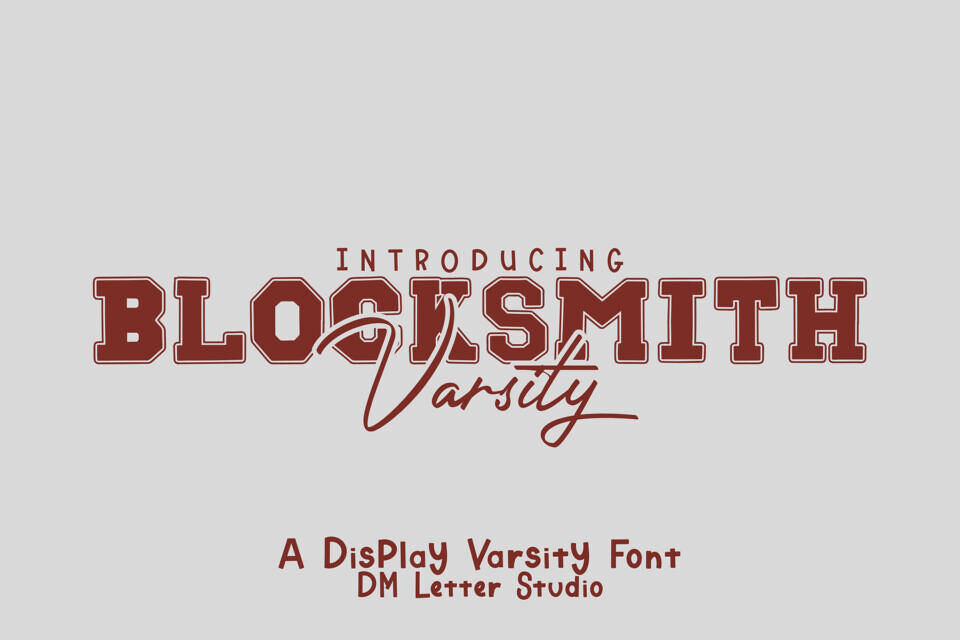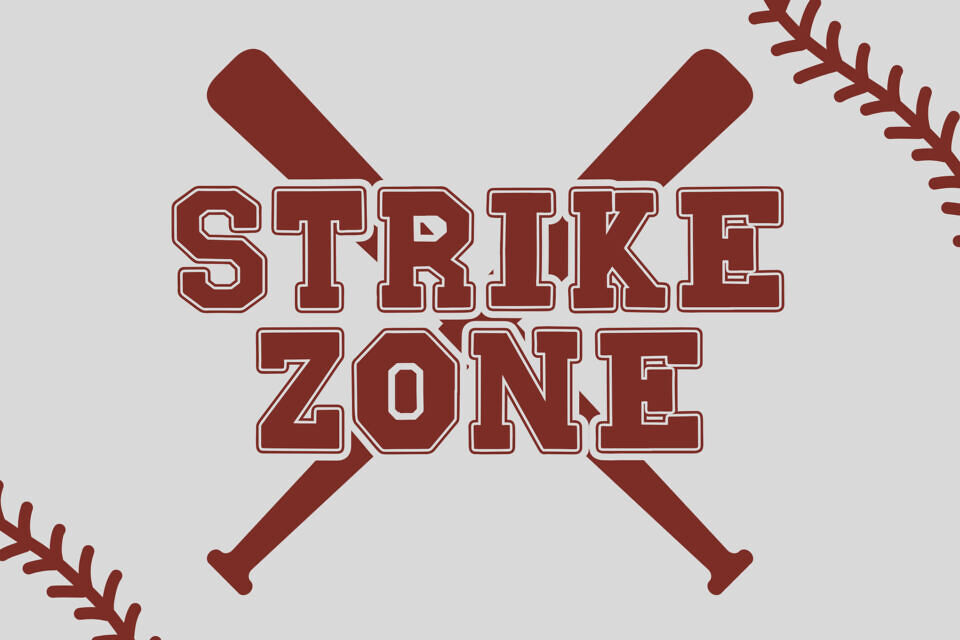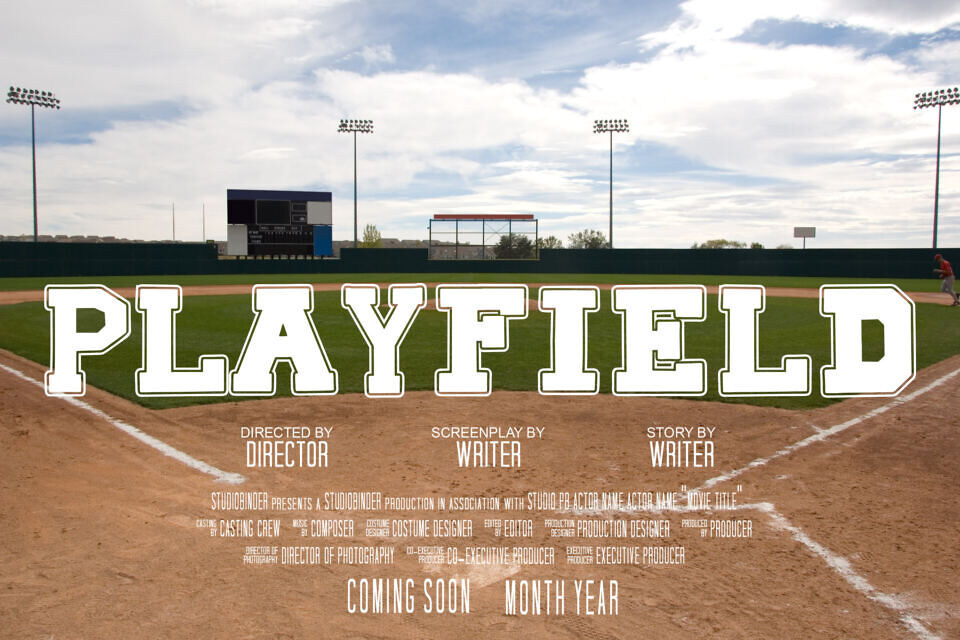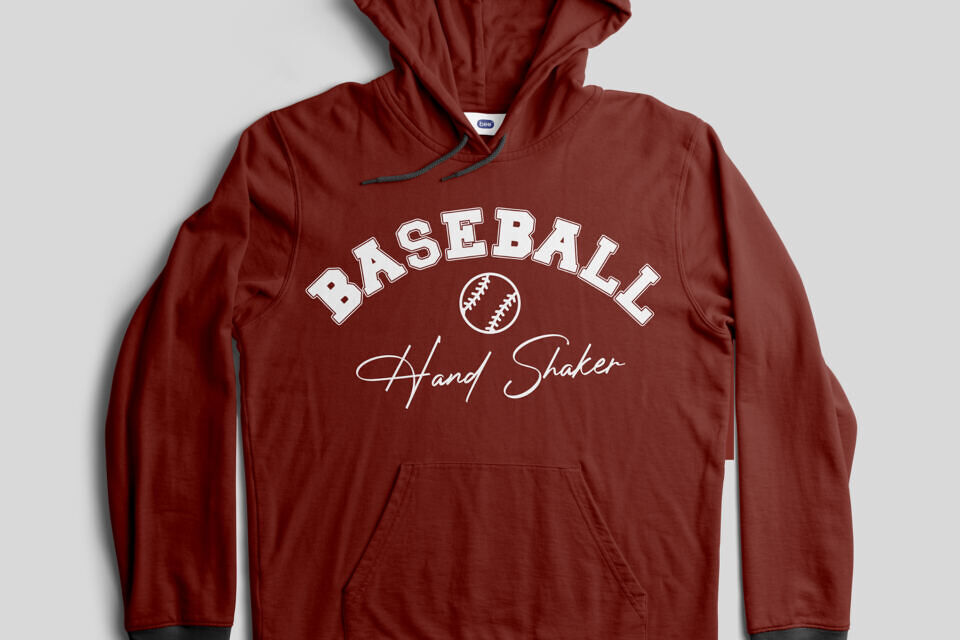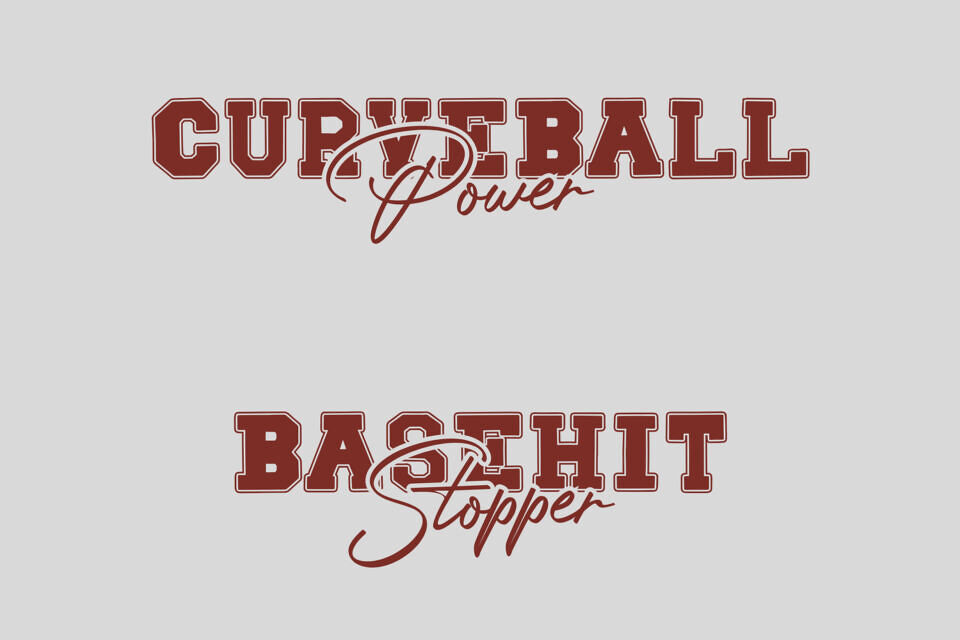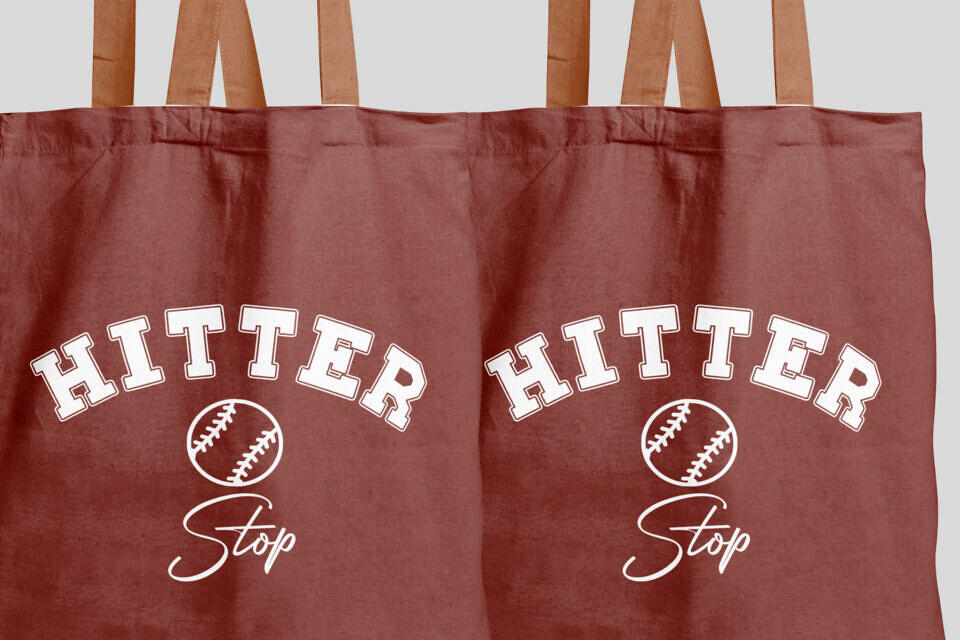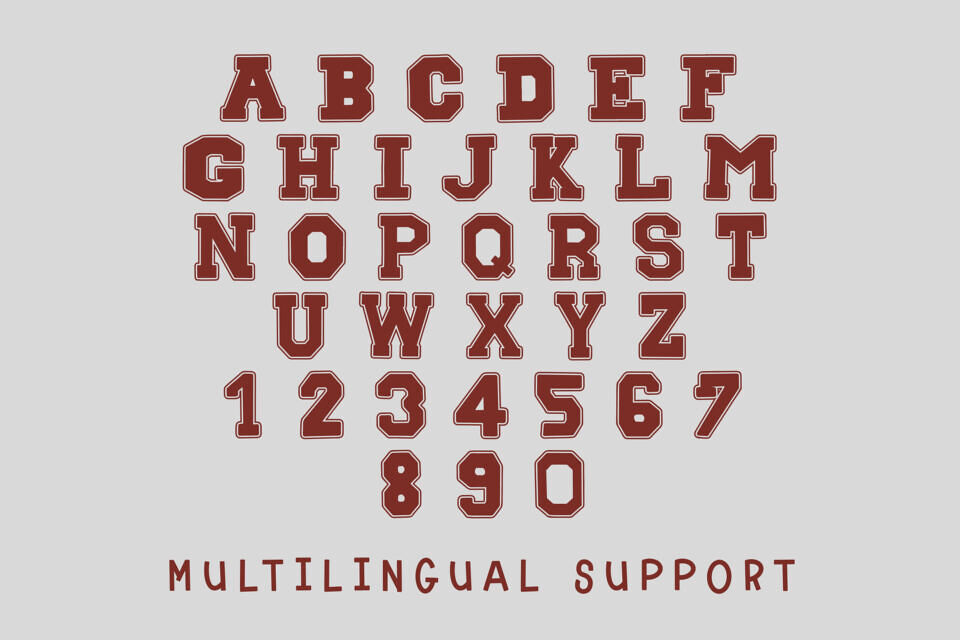
Blocksmith Varsity Font
Blocksmith Varsity is a powerhouse display font built for sports, spirit, and standout designs. With strong block shapes, sharp serifs, and a classic varsity aesthetic, this all-caps font captures the look of team jerseys, college banners, and retro athletic graphicWhethers.  you’re creating logos, merchandise, or school apparel, Blocksmith Varsity brings tradition and energy into every character.